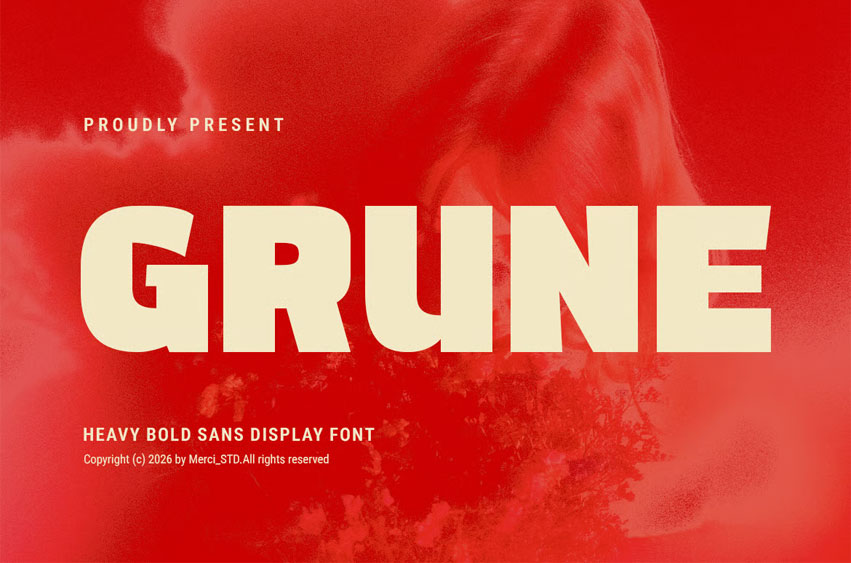
Grune Font is a strong and heavy bold sans serif display font designed for impactful headlines and modern branding.
Its solid structure makes it perfect for posters, advertising, and bold visual compositions.
- Uppercase Letters
- Numbers & Punctuation
- Ligature & Alternate Character
- Unique Hand-Drawn Style